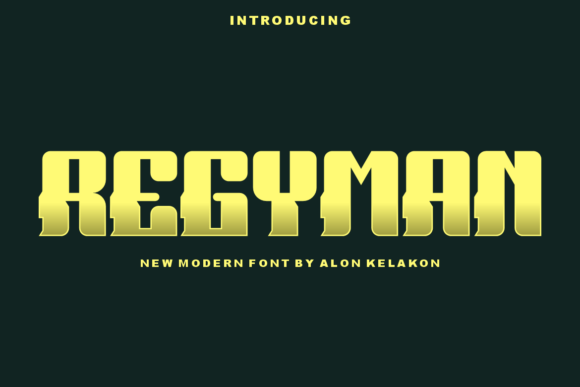
Introducing the Regyman Font: A Symphony of Sophistication for Your Designs
Welcome to the world of Regyman, a distinctive slab serif font that exudes timeless elegance and rugged charm. Crafted by the visionary artist, alonkelakon, this typographic masterpiece is a testament to creativity and craftsmanship.
At the heart of Regyman lies its versatility, a testament to its adaptability to a myriad of design projects. Its sturdy letterforms evoke a sense of stability and authority, making it the ideal choice for logos, posters, and headlines that demand attention. But don't be fooled by its bold presence; Regyman's intricate details and subtle curves add a touch of refinement that sets it apart from the ordinary.
If you seek a font that breathes life into your farming-related designs, look no further than Regyman. Its nostalgic charm will transport you to a simpler time, capturing the essence of agrarian life with every stroke. Adorn your labels, packaging, and marketing materials with Regyman, and let your designs exude the authenticity and warmth of the countryside.
But Regyman's allure extends far beyond the farm. Its versatility shines in the realm of movie scenes, album covers, and gig posters. Its ability to convey both strength and sophistication makes it the perfect choice for designs that demand a touch of cinematic flair. Whether you're evoking the grandeur of the silver screen or capturing the raw energy of a live performance, Regyman will add a touch of visual magic to your creations.
For those seeking a font that transcends the mundane, Regyman awaits. Its unique character will infuse your designs with a timeless charm that will endure the test of time. So, dive into the world of Regyman and unleash the boundless potential of your imagination. Let its bold strokes and intricate details elevate your designs to new heights of beauty and sophistication.